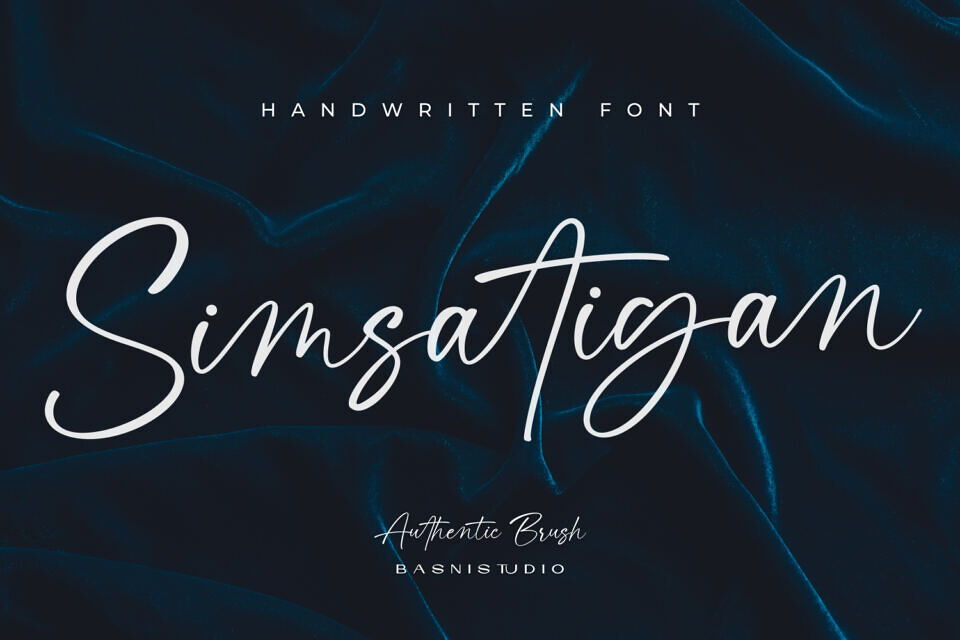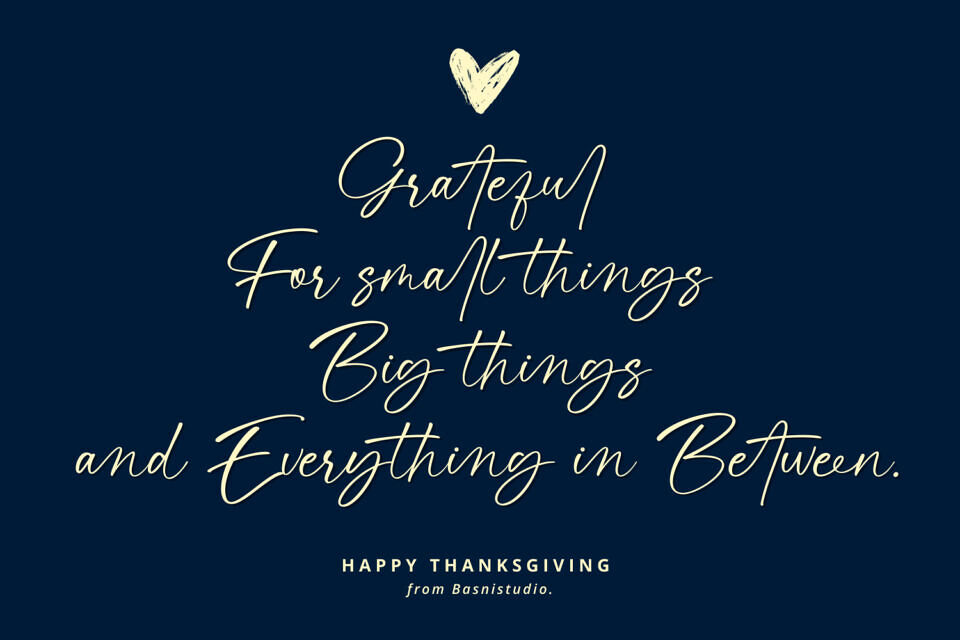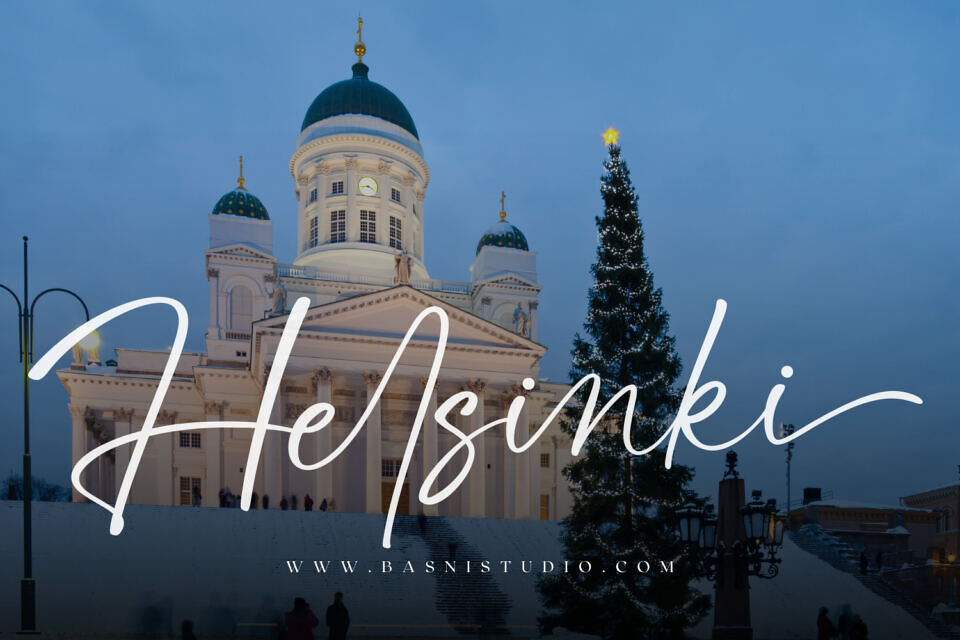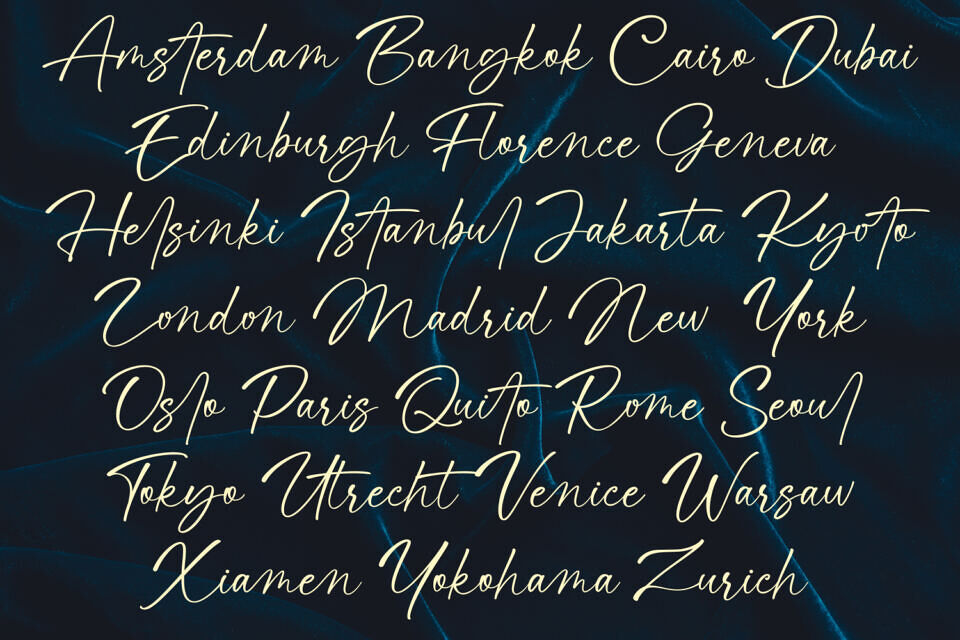
Simsatigan is a handwriting font that mimics real pen strokes, giving it a natural and casual feel. It’s perfect for adding a personal touch to branding, social media, and invitations.
With its authentic handwritten look, Simsatigan is easy to use and works well with major design programs, making it ideal for creating unique designs and building a strong brand identity.